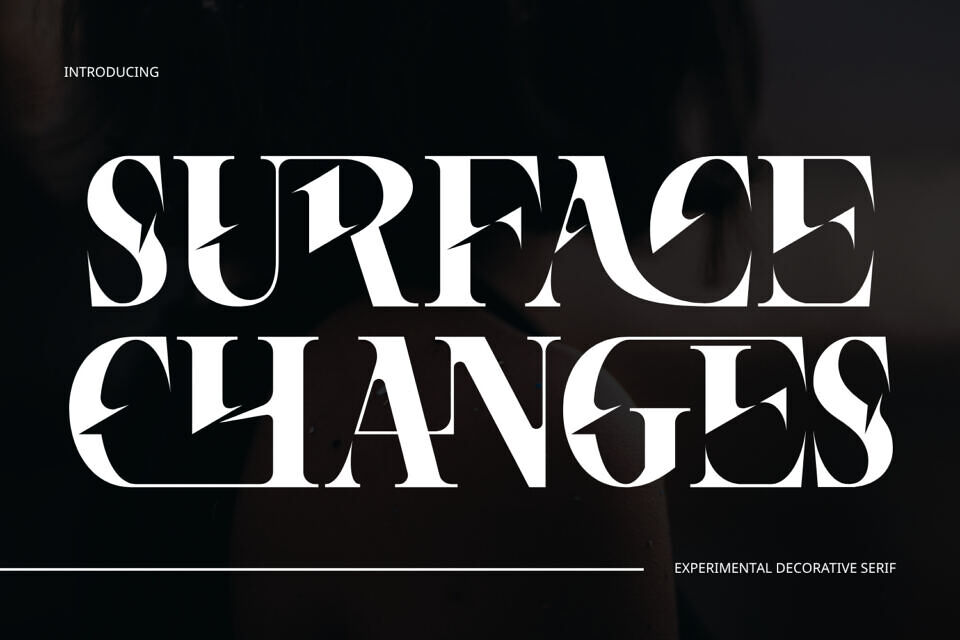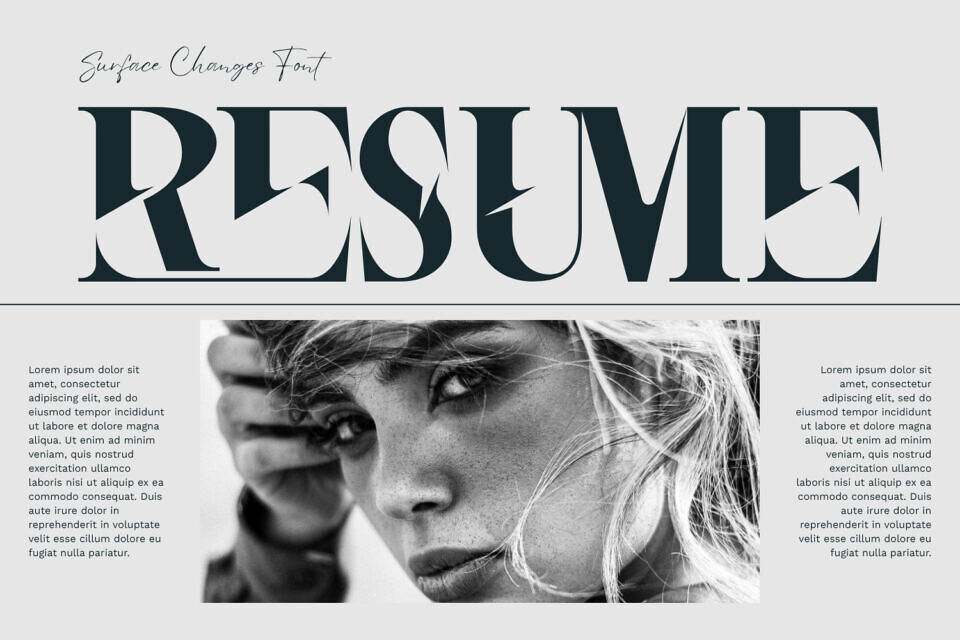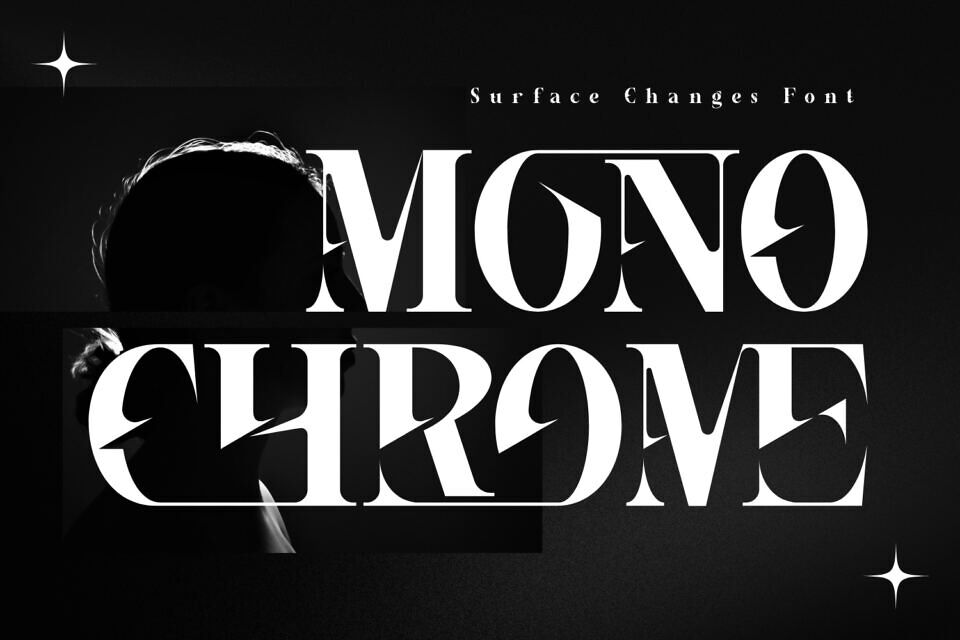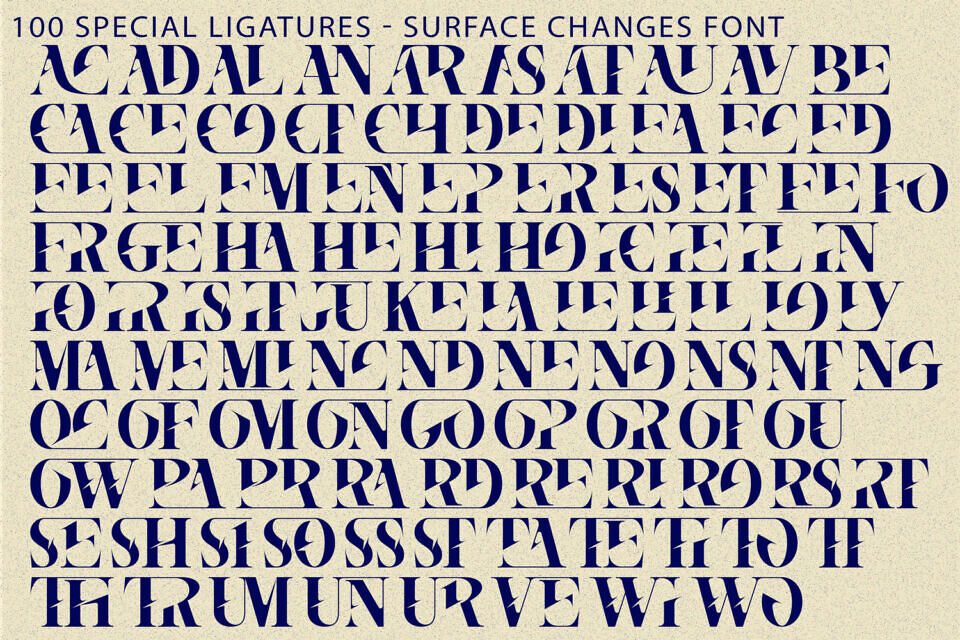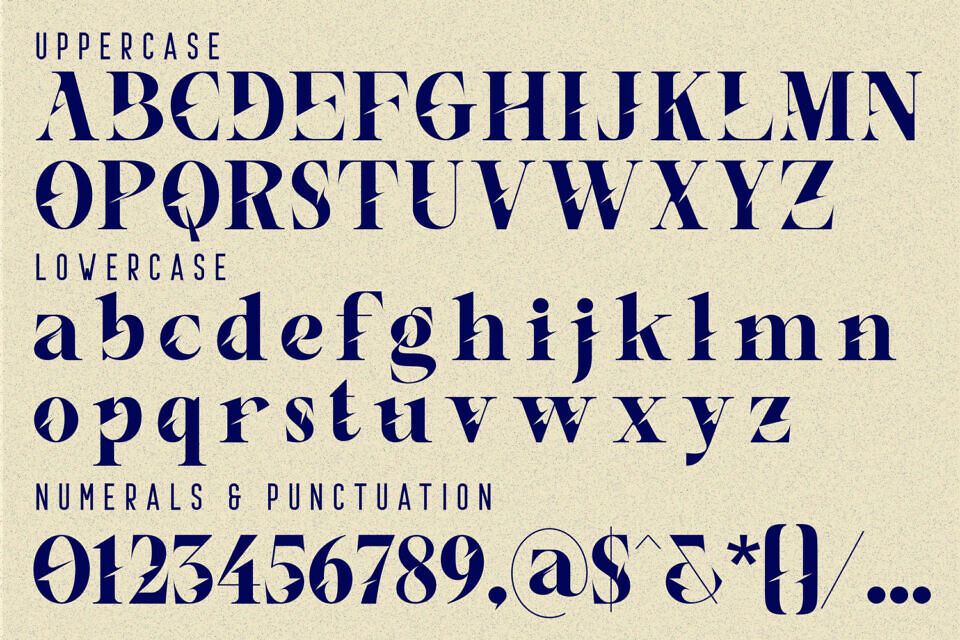
Surface Changes Font
SURFACE CHANGES is a sophisticated modern serif display font that blends timeless elegance with bold contemporary character. Inspired by luxury editorial typography and high-fashion aesthetics, this typeface features dramatic high-contrast strokes, refined proportions, and distinctive angular cut details that create a truly unforgettable visual identity.
Designed with sharp triangular accents and elegant letterforms, SURFACE CHANGES offers a perfect balance between classic serif beauty and modern artistic expression. The unique internal cuts and pointed terminals add depth, personality, and a sense of exclusivity, making every headline look striking and premium.